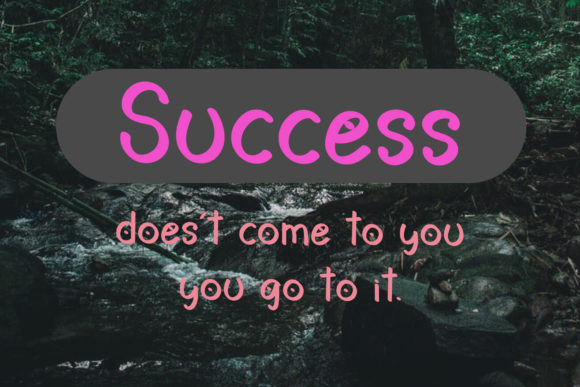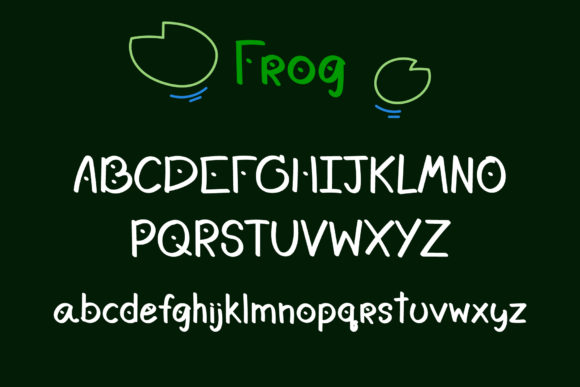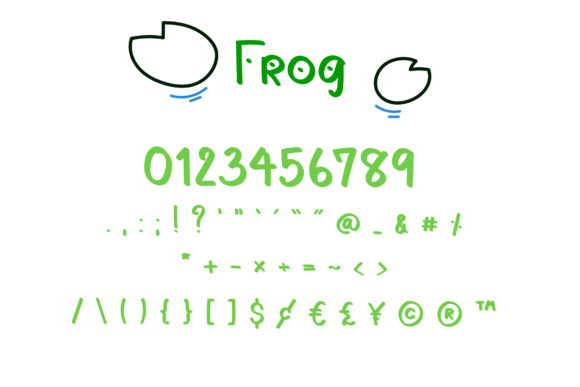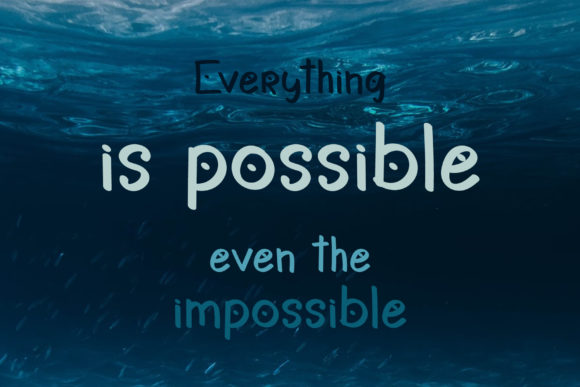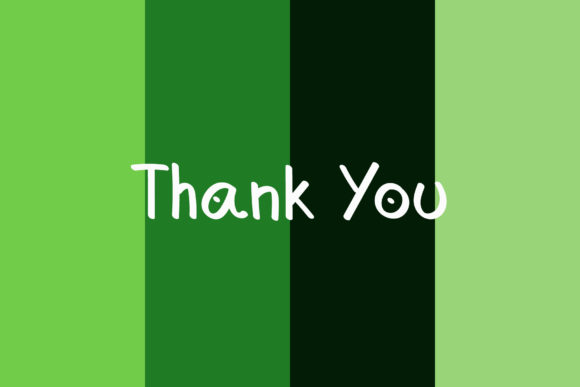
Frog Font: The Ultimate Choice for Creative Projects
Are you a designer, crafter, or DIY enthusiast looking for a font that can add a touch of friendliness and playfulness to your creative projects? Look no further than the Frog Font! This adorable handwritten font is perfect for anyone who wants to infuse their work with a sense of whimsy and approachability.
What is Frog Font?
Frog Font is a cute and casual handwritten font that boasts an incredibly friendly feel. Its unique charm makes it an excellent choice for a wide range of creative projects, from social media graphics and Instagram posts to calligraphy scripts and DIY crafts. With Frog Font, you can turn any idea into a true piece of art that resonates with your audience.
Key Features of Frog Font
- Cute and Casual: Frog Font’s hand-drawn design gives it a laid-back, informal vibe that’s perfect for creative projects that require a personal touch.
- Friendly Feel: The font’s rounded edges and smooth curves create a sense of approachability and warmth, making it ideal for designs that aim to connect with the audience.
- Versatile: Frog Font can be used for a wide range of projects, from digital graphics and social media posts to print materials and handmade crafts.
- Easy to Read: Despite its playful nature, Frog Font remains highly legible, ensuring that your message is conveyed clearly and effectively.
Use Cases for Frog Font
Frog Font’s versatility makes it suitable for various applications. Here are some popular use cases:
- Instagram and Social Media Graphics: Add a touch of personality to your social media posts and stories with Frog Font. It’s perfect for creating engaging captions, quotes, and promotional materials.
- Calligraphy Scripts: Use Frog Font as a starting point for your calligraphy projects. Its handwritten design and flowing curves make it an excellent choice for creating beautiful, hand-written scripts.
- DIY Projects: Frog Font is a great addition to any DIY project, from handmade cards and invitations to craft tutorials and blog posts.
- Branding and Packaging: Consider using Frog Font for your brand’s identity, packaging, or labeling. Its friendly feel can help create a positive association with your brand.
Tips for Using Frog Font Effectively
To get the most out of Frog Font, follow these tips:
- Pair with Other Fonts: Combine Frog Font with other fonts to create visual interest and hierarchy. Try pairing it with a sans-serif font for a bold, modern look.
- Experiment with Colors: Frog Font looks great in a variety of colors. Try using pastel shades, bright hues, or metallic colors to add a pop of personality to your design.
- Play with Size and Style: Don’t be afraid to experiment with different font sizes and styles. Frog Font can be used as a headline font or a body text font, depending on your design needs.
Frog Font is a delightful handwritten font that can add a touch of friendliness and playfulness to any creative project. Its versatility, readability, and charm make it an excellent choice for designers, crafters, and DIY enthusiasts. Whether you’re looking for fonts for Instagram, calligraphy scripts, or DIY projects, Frog Font is sure to turn your ideas into true pieces of art. So why not give it a try and see how Frog Font can elevate your creative projects?